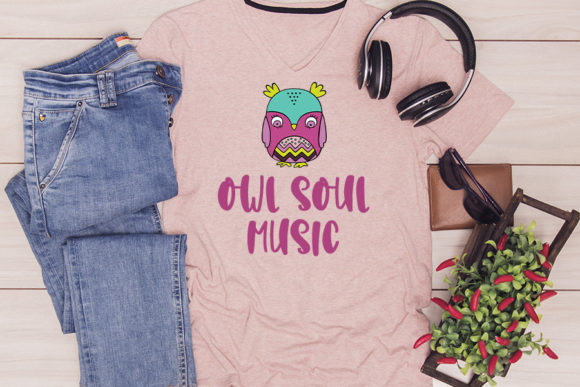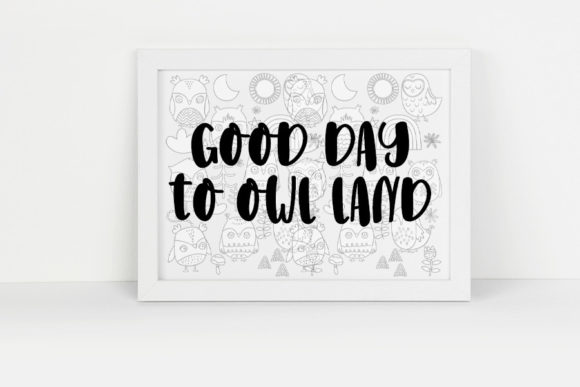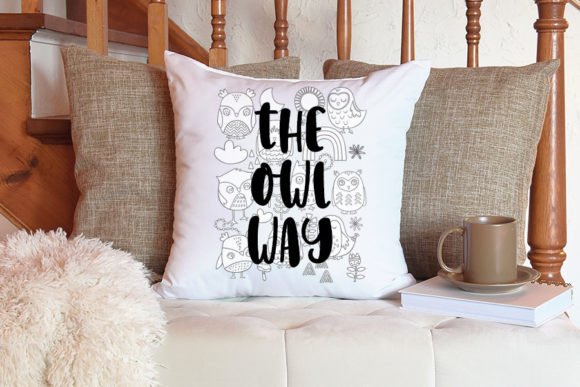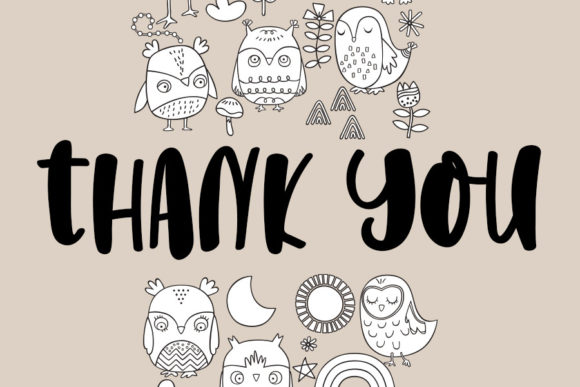
Introduction to Owl Forest Font
Do you remember the moment when a spark of creativity struck you? Perhaps it was while browsing through a design blog or scrolling through Instagram, and you stumbled upon a visually stunning project that left you speechless. For many designers, this moment is what drives them to create something truly special. And for those who are always on the lookout for the perfect design resource, we have some exciting news – the Owl Forest Font is here to elevate your creative projects to the next level!
As a high-quality script font, the Owl Forest Font is carefully crafted with a touch of magic. With its elegant and whimsical feel, it’s the perfect addition to any design project that requires a dash of personality. Whether you’re working on a DIY project or creating content for Instagram, this font is sure to make your ideas shine with a transparent background and a free download that’s available for all to enjoy.
Key Features of Owl Forest Font
- High-quality design resource ideal for creative projects, including invitations, posters, and more.
- Unique, whimsical design featuring a transparent background, allowing for easy layering and customization.
- Perfect for designers and artists looking for a free, high-quality font to enhance their creative projects.
Honest Review: Owl Forest Font
As a designer, I’ve had the chance to work with a variety of fonts, but the Owl Forest Font has left a lasting impression. I downloaded it for free, and I was immediately struck by its unique design. The font’s high quality is evident in its intricate details and varied character set.
- ✨ Unique and creative design that’s perfect for a fantasy-themed project
- ✨ Large character set with plenty of options for customization
- ✨ Transparent background, making it easy to use in creative projects
- ⚠️ Limited support for non-English characters, which can be a challenge for international projects
- ⚠️ May not be suitable for formal or professional designs, due to its whimsical nature
Overall, I’m impressed with the Owl Forest Font. It’s a great addition to any designer’s toolkit, especially for creative projects that require a touch of fantasy. While it may have its limitations, the font’s unique design and high quality make it a valuable resource for designers of all levels.
Tips for Getting the Most Out of Owl Forest Font
For optimal results, use Owl Forest Font on a transparent background to allow the font’s unique design elements to shine through. Additionally, consider pairing the font with other design elements, such as images and shapes, to create a visually striking design.
Owl Forest Font is commonly used in creative projects, such as digital art, graphic design, and typography-based designs. Its high-quality design and transparent background make it an ideal choice for designers seeking a unique and eye-catching font.